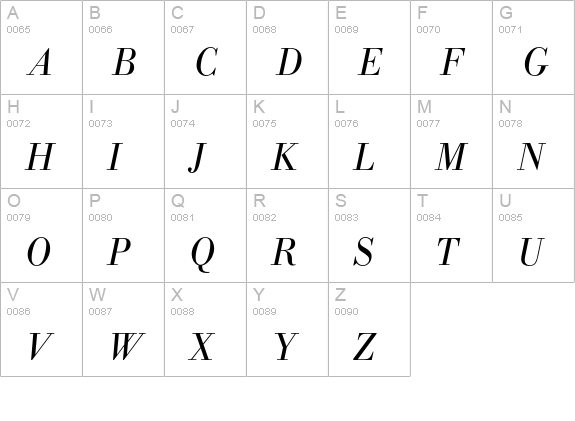
BodoniEF-LightIta is a beautiful and elegant font that exudes sophistication and style. Its delicate and slender curves give it a refined and graceful appearance, making it perfect for conveying a sense of elegance in any design project. The light italic style of BodoniEF-LightIta adds a touch of flair and sophistication, making it ideal for use in headings, titles, and other display purposes. What makes BodoniEF-LightIta even more appealing is that it is available for free download at FontsMarket.com. This means that you can easily access and use this stunning font in your projects without any cost. Whether you're working on a branding project, a website design, or any other creative endeavor, BodoniEF-LightIta can help you achieve a polished and professional look. Don't miss out on this opportunity to enhance your designs with this exquisite font - download it for free today at FontsMarket.com!